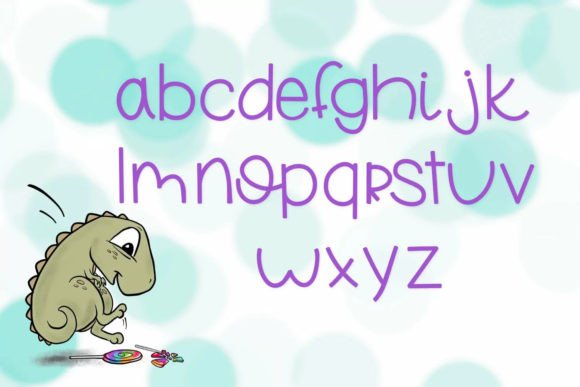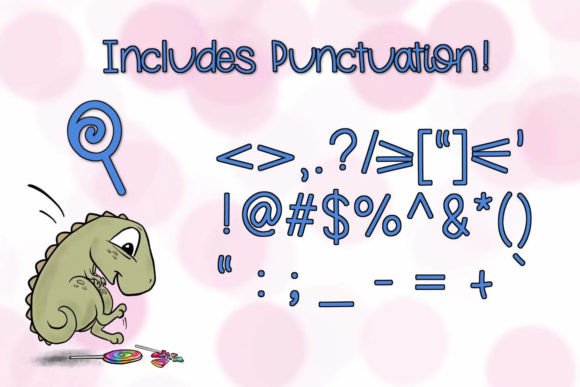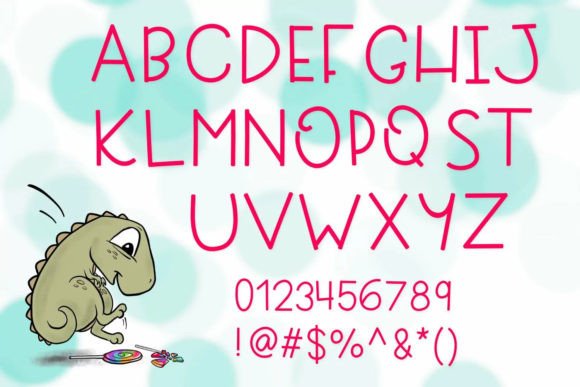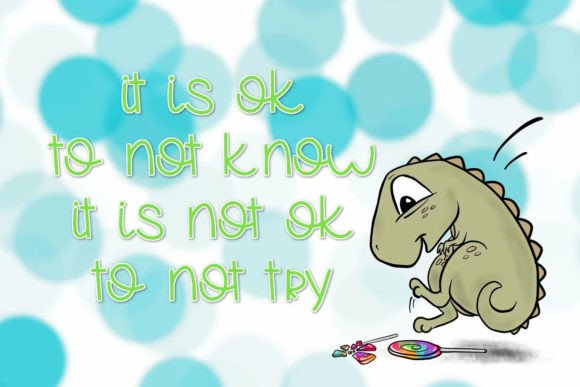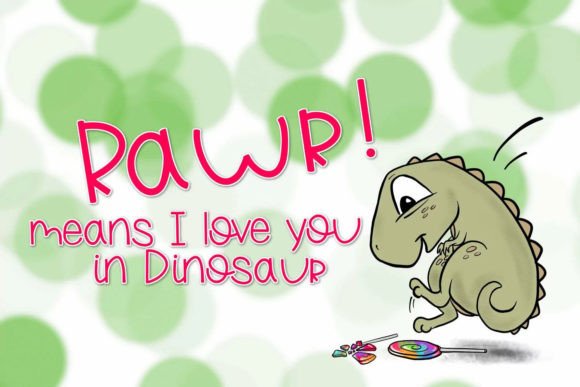
Introduction to Lollipop Stomp Font
Introducing Lollipop Stomp, an adorable handwritten font.
This modern, blocky font works great with cutting machines With some connecting letters, Lollipop stomp gives you a nice handwritten feel.
Key Features of Lollipop Stomp Font
Why Choose Lollipop Stomp Font?